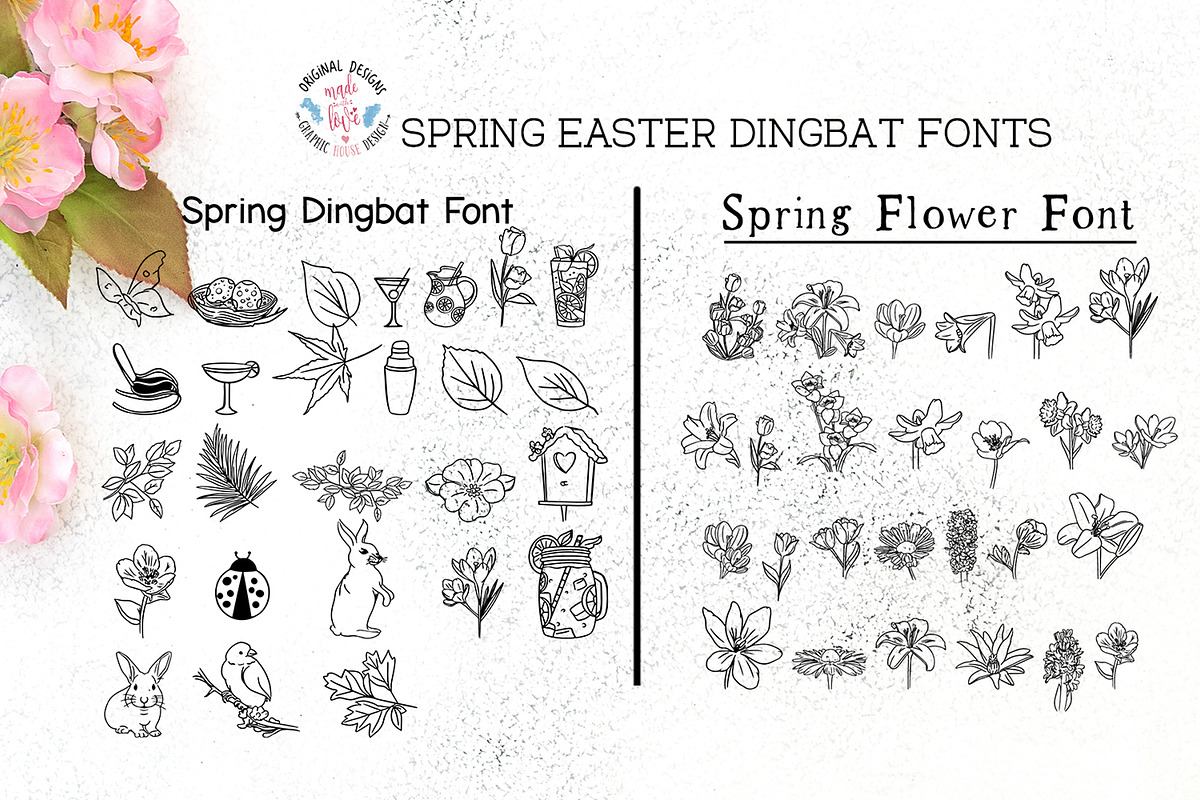
Please note, to use this font for commercial purposes, you must purchase the full version. Spring Easter Dingbat 2 is a fun and decorative font that brings the cheerful spirit of Easter and spring to your designs. With its collection of festive symbols, such as eggs, bunnies, flowers, and more, this font is perfect for creating invitations, greeting cards, logos, and other seasonal projects. Whether you're designing for an Easter event, a spring festival, or a playful greeting card, Spring Easter Dingbat 2 adds charm and whimsy to your work. Test it out and enjoy free download access for personal use. Experience the festive fun of Spring Easter Dingbat 2 Fonts Free Download before purchasing the commercial license. Add a playful, seasonal touch to your designs with Spring Easter Dingbat 2.